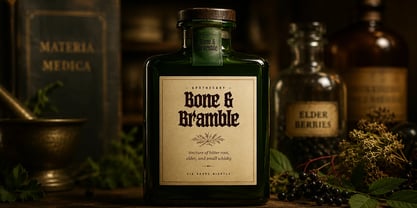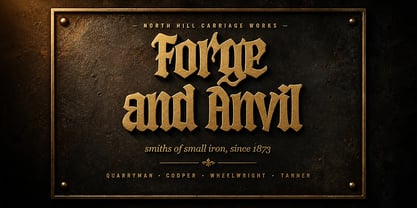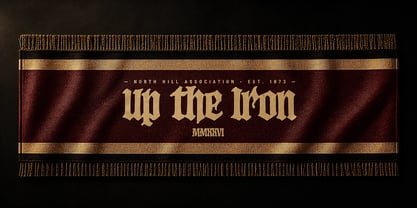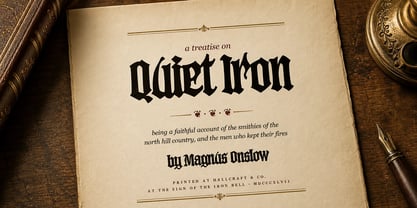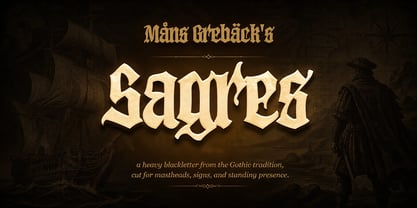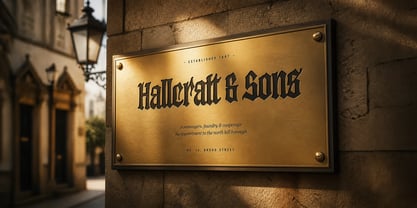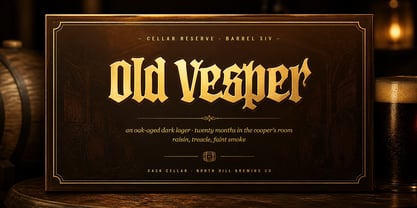
Sagres
Sagres is a blackletter typeface drawn with heavy verticals and diamond-tipped joins from the Gothic tradition.
The capitals are tall and densely structured — closer to medieval manuscripts than to any modern serif — while the lowercase carries the broken curves and pointed terminals of the Fraktur lineage. Letters sit tight against one another, and a line of text reads as a dark, textured column rather than a row of separated words. The italic adds a slight forward slope; the bold pushes the strokes heavier still, suited to short, weighty headlines.
It belongs on a masthead, a record cover, a tattoo flash sheet — anywhere the page needs to carry presence, history, and a measured touch of menace.
The font is built with advanced functionality and guaranteed top-notch quality, containing stylistic and contextual alternates, ligatures and more automatic and manual features; all to give you full control and customizability.
It has extensive lingual support, covering all Latin-based languages, from North Europa to South Africa, from America to South-East Asia. It contains all characters and symbols you'll ever need, including all punctuation and numbers.